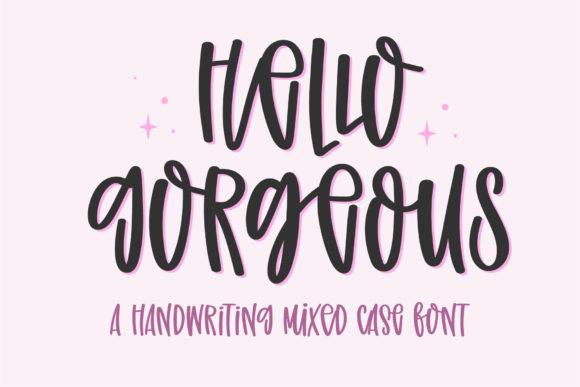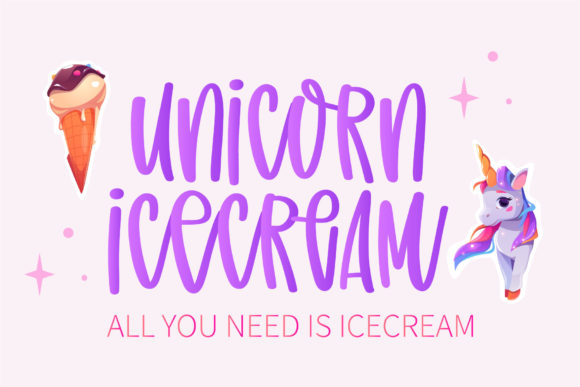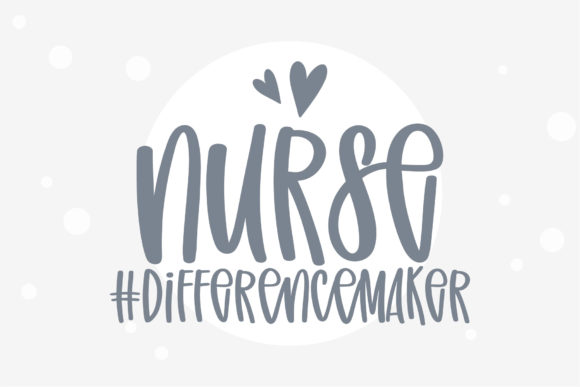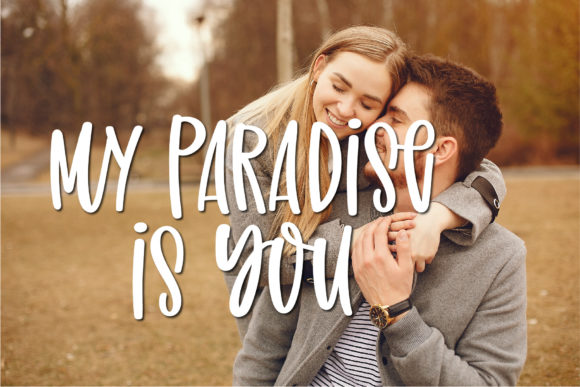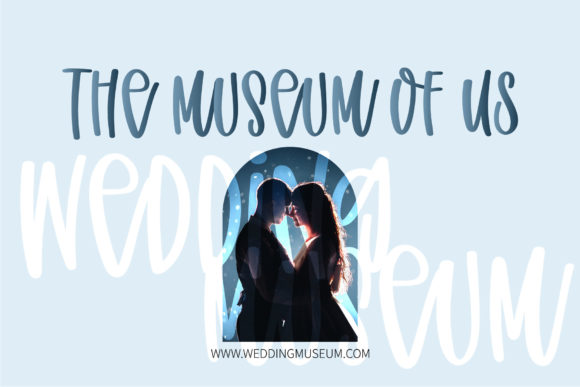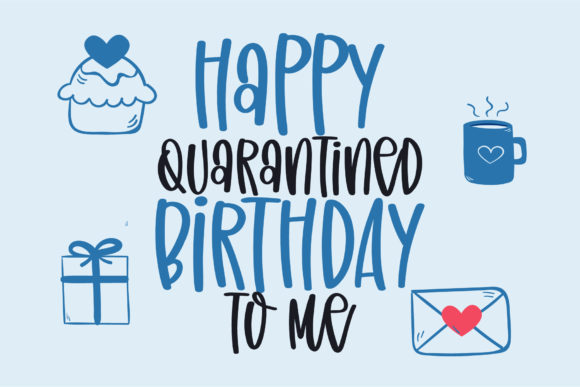
About Hello Gorgeous Font
Hello Gorgeous is a cool, friendly, and informal handwritten font, that can be used for all chalkboard quotes or teaching material!
Its authentic look and feel will add a personal and realistic feel to your designs.